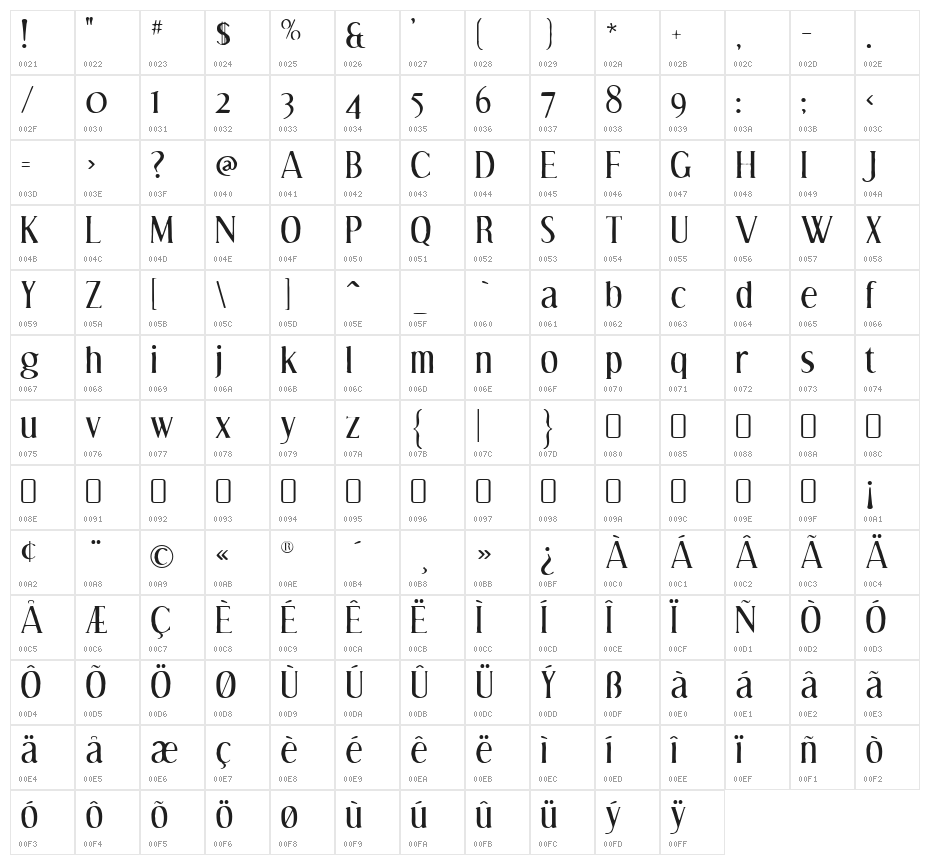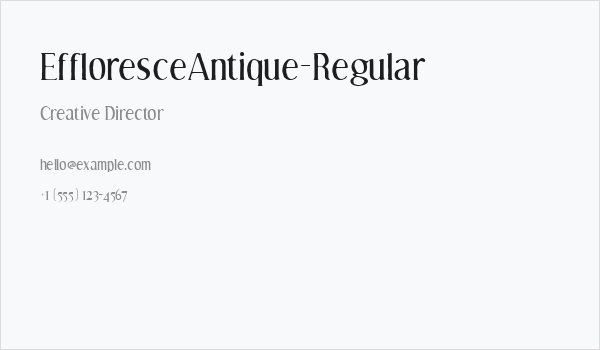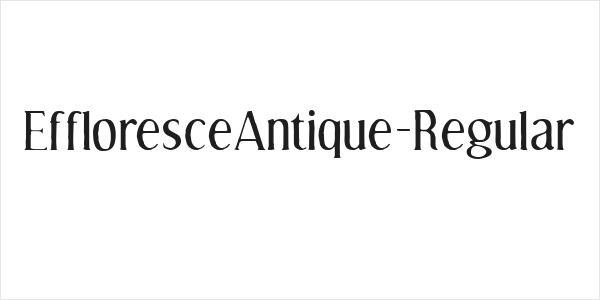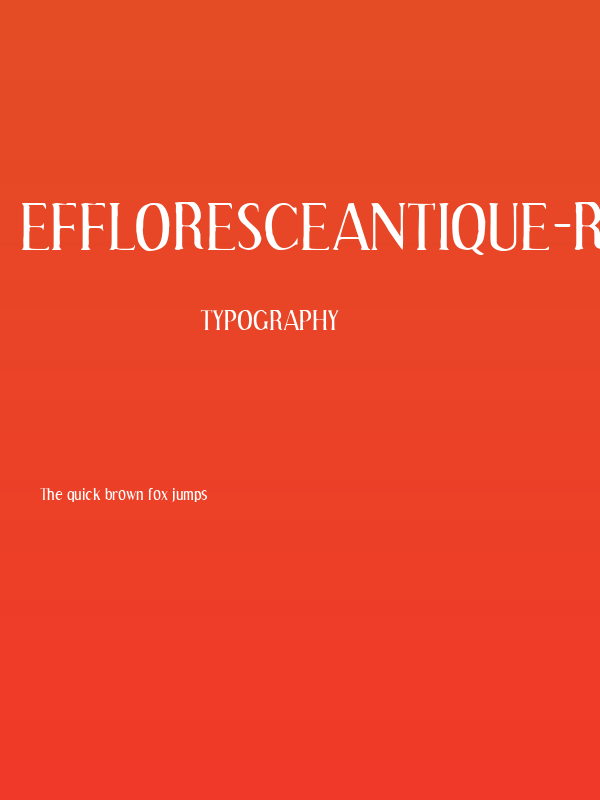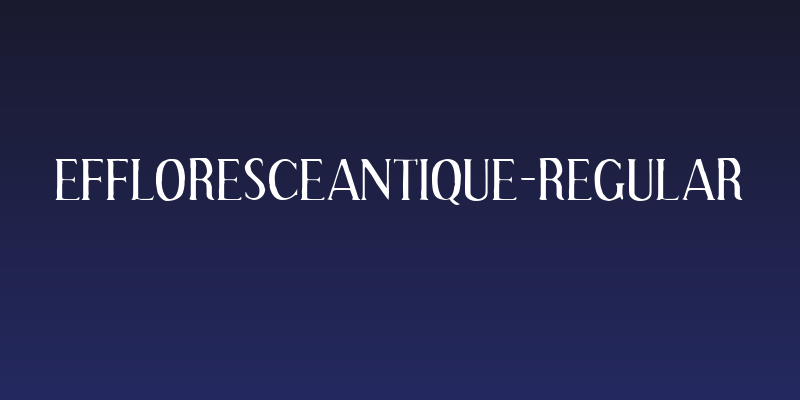
EffloresceAntique-Regular Font
EffloresceAntique-Regular Description
This font exudes a vintage charm with its elegant and slightly elongated letterforms. The uppercase letters are tall and narrow, featuring subtle serifs that add a touch of sophistication. The lowercase letters maintain a consistent style, with rounded edges and a graceful flow. The numerals are distinct and easy to read, complementing the overall aesthetic. Special characters are thoughtfully designed, ensuring versatility in various applications. The font's unique style makes it suitable for projects that require a classic yet artistic touch.
| Proposed Projects | Ideal for book covers, wedding invitations, branding for luxury products, and editorial design. |